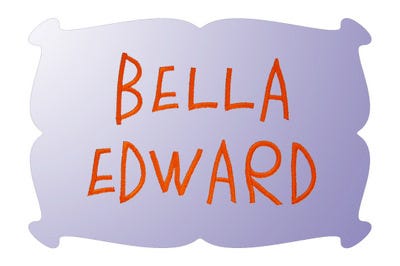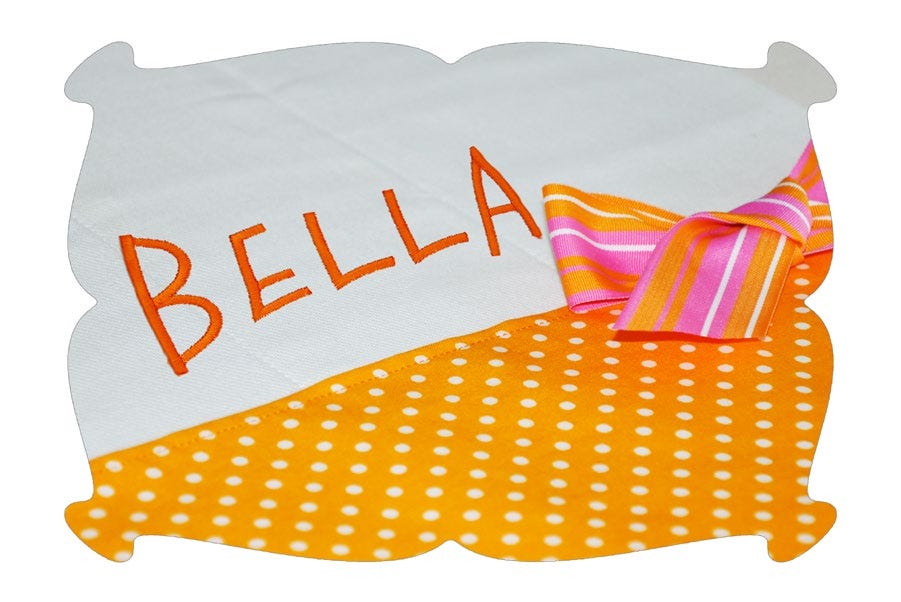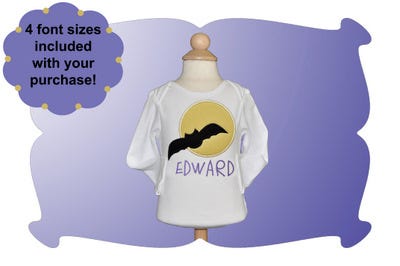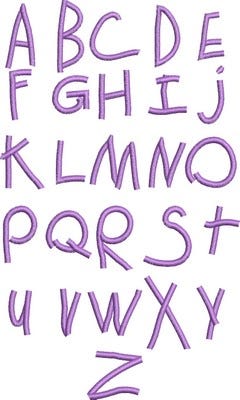
Quirky Caps Satin Stitch Embroidery Font
Quirky Caps Embroidery Font
This "quirky" embroidery font features letters straight out of the kindergarten classroom.
Suitable for both boys and girls and perfect for burp cloths, bibs, book bags....
...and just quirky enough to look great on Halloween items too!
The Quirky Caps Embroidery Font includes 26 letters, A thru Z, in a mix of both upper and lower case letters.